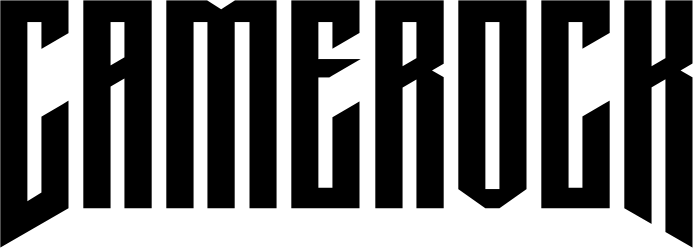
Gamerock Font
Gamerock is that cool and goth element that you are missing in your presentation! This biker gothic font will make your text look urgent and edgy. You can use it for any gaming logo, comic book, puzzle name, movie title, and informal headlines. This font is an all-caps font and doesn’t have a numeric set.